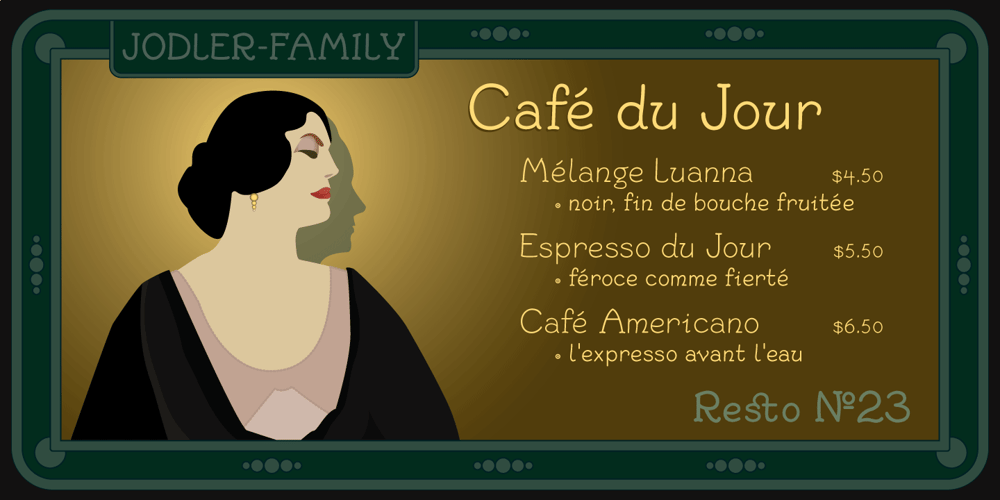
Jodler Font Family was designed by Beau Williamson and published by Beau Williamson. Jodler contains 3 styles and family package options. Inspired by show card lettering and the more human side of art deco, I wanted this font to retain the casual unevenness of informal hand lettering. As decorative as the font looks, I do envision it being used for text more than display. Obviously not a workhorse, but rather a quirky niche font. I find it makes dense philosophic texts more friendly to read.